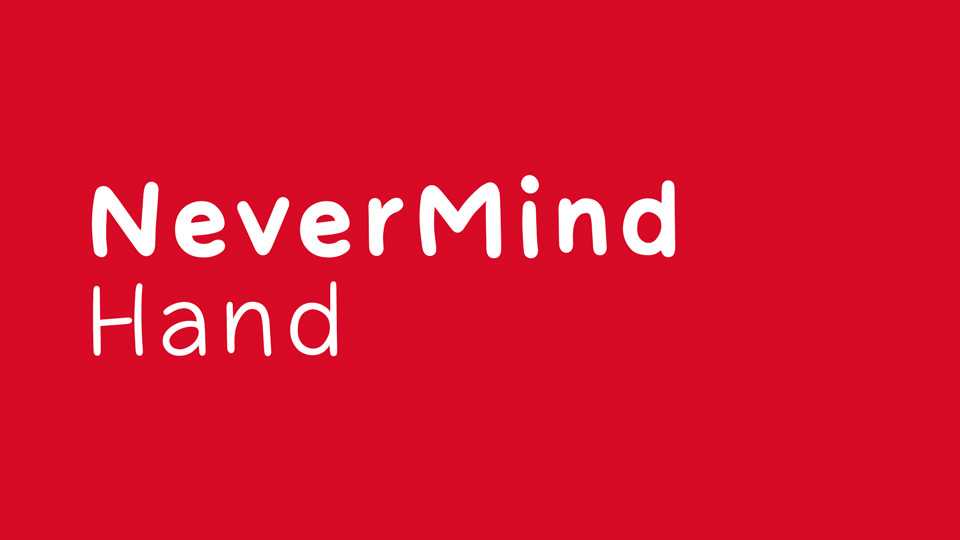
Nevermind Hand Font Family › Fontesk – Download Grátis
Download Nevermind Hand font, a casual hand drawn typeface that captures the essence of dynamic motion and lively emotion. Simple and friendly, Nevermind Hand font can be used for all types of communication.
Designer: XMind Ltd.